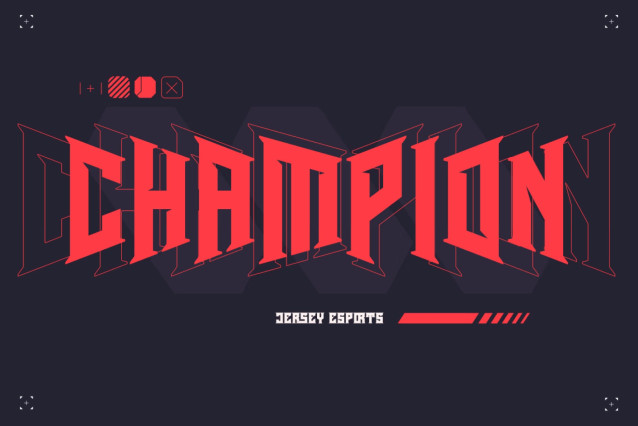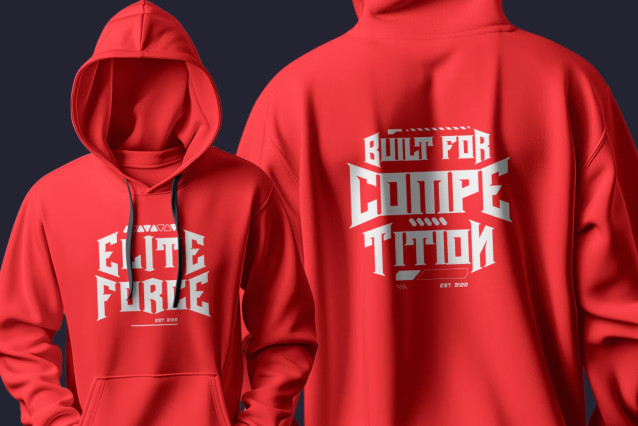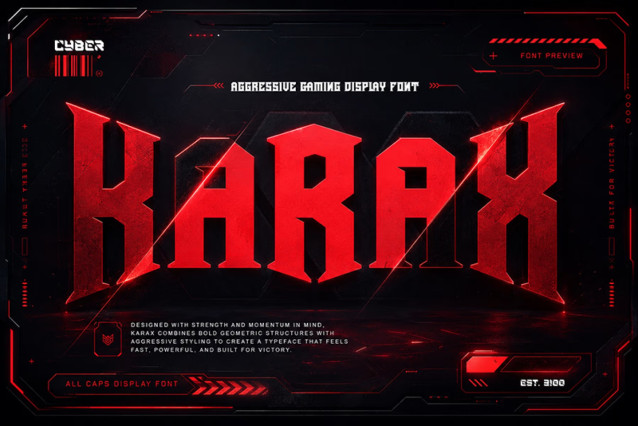
Harax Gaming Font
Harax is an aggressive gaming display font featuring sharp geometric letterforms, alternates, swashes, ligatures, and multilingual support. Perfect for esports logos, game titles, sportswear, posters, packaging, merchandise, and futuristic branding.